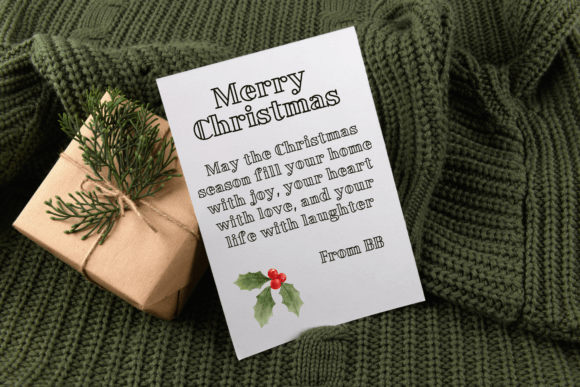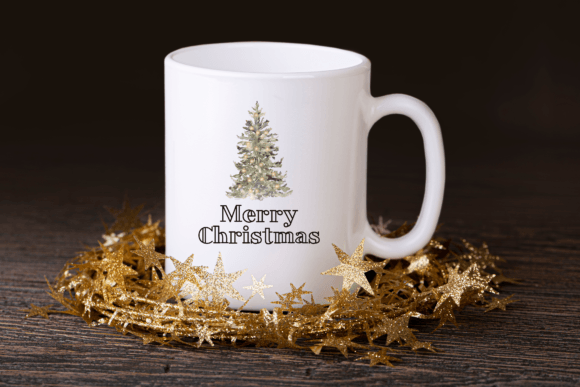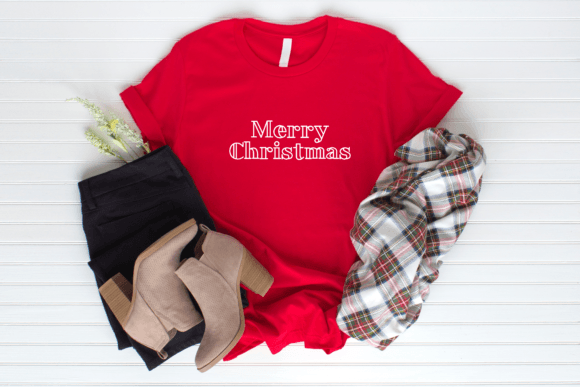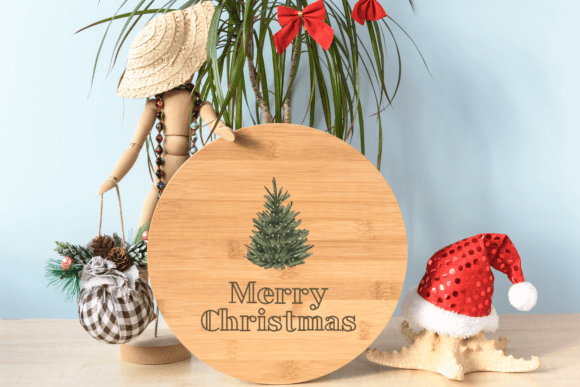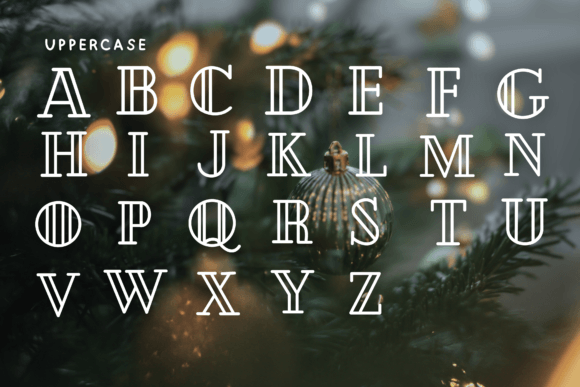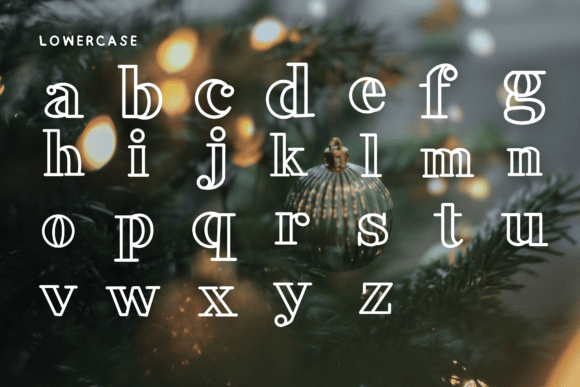
Deck the Halls with Typography
It’s that time of the year when creativity knows no bounds, and the festive spirit takes over. As you sit by the fireplace, sipping hot cocoa and brainstorming ideas for your holiday projects, you stumble upon the perfect font to capture the essence of Christmas. The Christmas Font is a delightful addition to your design arsenal, offering a unique blend of warmth and personality with every stroke.
With the Christmas Font, you can elevate your designs from ordinary to extraordinary. Whether you’re creating intimate notes, crafting compelling diary entries, or designing delightful greeting cards, this font is sure to make your creations feel like a personal and special gift. For designers, the Christmas Font is a valuable addition, providing endless possibilities for creative expression and making every project a joy to work on.
Key Features of Christmas Font
- Unique Characteristics: The Christmas Font features a festive and playful design, with intricate details and ornaments that evoke the spirit of the holiday season.
Christmas Font Review
Overall, I was excited to dive into the Christmas Font and see what it had to offer. As a designer, I’m always on the lookout for unique and festive fonts to bring some holiday cheer to my projects.
- Unique, festive feel: The Christmas Font has a distinct, whimsical feel that’s perfect for holiday-themed projects.
- Wide range of characters: The font includes a variety of characters, including ornaments, snowflakes, and even a few fun winter-themed icons.
- Limited use cases: While the font is perfect for holiday-themed projects, it may not be the best choice for everyday use.
Overall, I think the Christmas Font is a great addition to any designer’s toolkit, especially during the holiday season. While it may have some limitations, its unique feel and wide range of characters make it a great choice for festive projects.
Tips for Getting the Most Out of Christmas Font
Use Christmas Font to add a festive touch to your holiday designs, such as greeting cards, gift tags, and party invitations.
Experiment with different font sizes and styles to create a unique and eye-catching look.
Combine Christmas Font with other festive graphics, such as holly leaves and snowflakes, to create a cohesive and holiday-themed design.
Christmas Font is perfect for:
Creating holiday greeting cards and